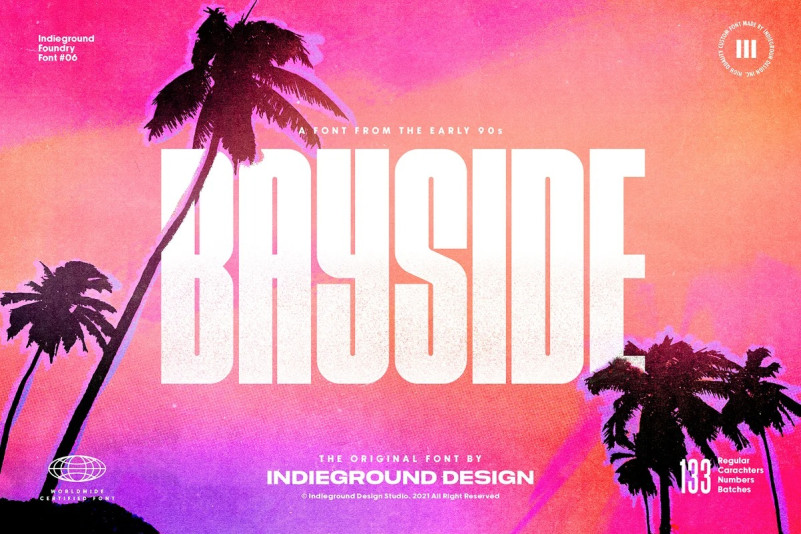
Bayside Font
Bayside Sans Serif Font by Indieground This condensed sans-serif font made by Indieground Team inspired by the summer retro atmospheres of the 80s and 90s. It can be used in elegant contexts reminiscent of Miami Deco Art of the 80s but, at the same time, it looks amazing with the neon color gradients of the 90s. You can also use it for your modern artworks to optimize space and is perfect for your heavy titles. It highlights at best and gives boldness to the typography of your artworks This regular commercial version includes the 3 different condensed font-weights with their full characters set shown in the preview.